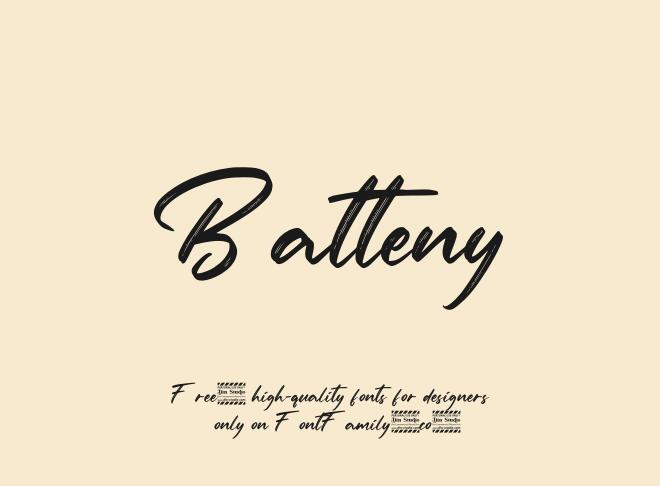
Batteny Font
Batteny Font is a modern, playful, and versatile handwritten typeface that brings a unique charm to any design project. With its rounded, playful strokes, it carries a sense of friendliness and approachability, making it a perfect choice for children's books, playful branding, social media posts, and more. It stands out for its versatility, comfortably fitting into a wide array of design contexts. Compared to other fonts, Batteny Font has a distinct personality that can add a unique flair to your designs. Its modern aesthetic also means it can blend seamlessly with contemporary design elements, creating a harmonious visual experience. With Batteny Font, you can elevate your design project while maintaining a sense of fun and modernity.